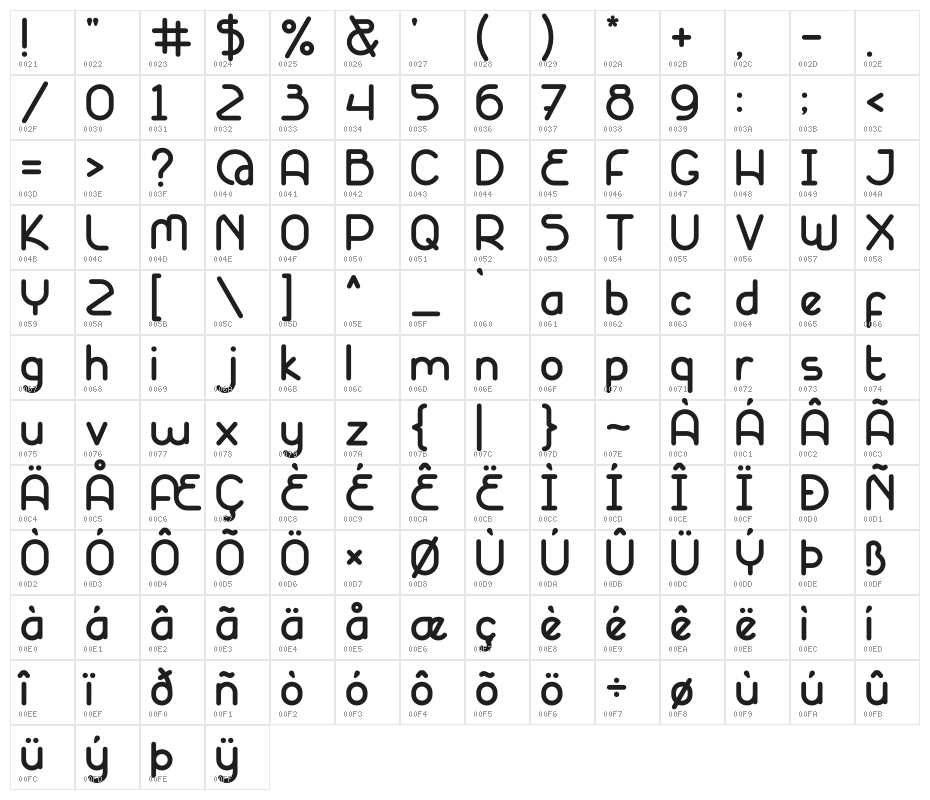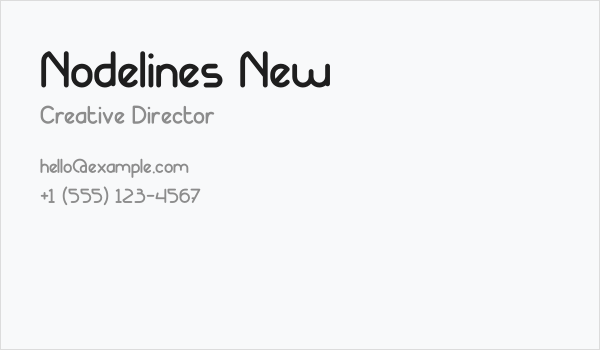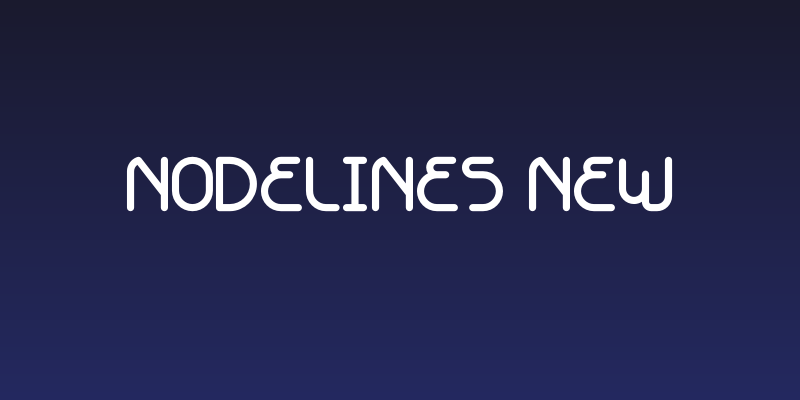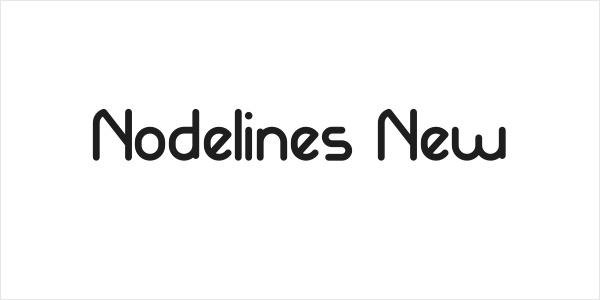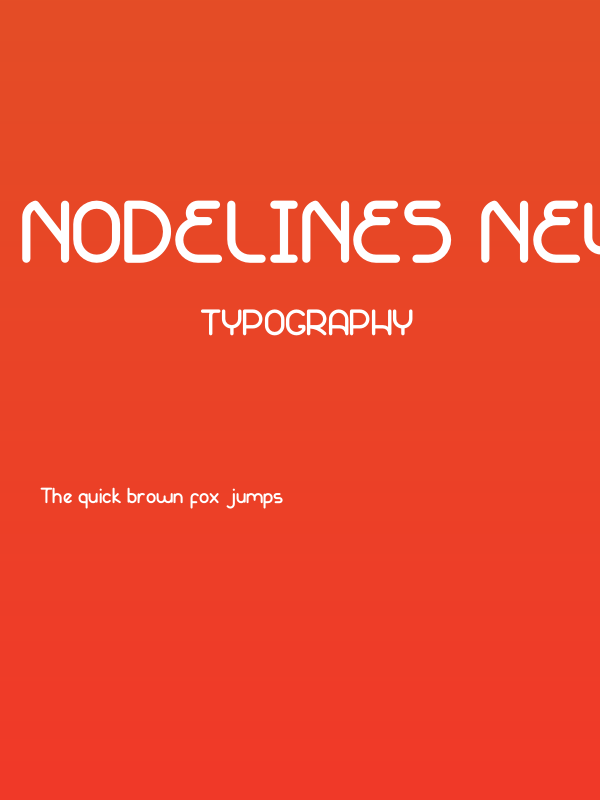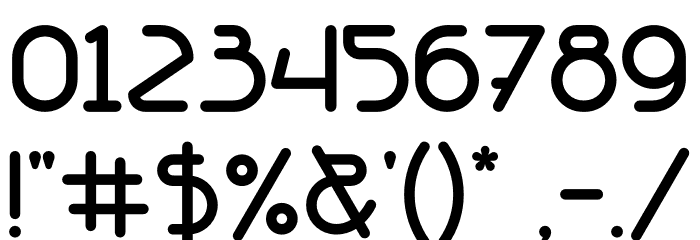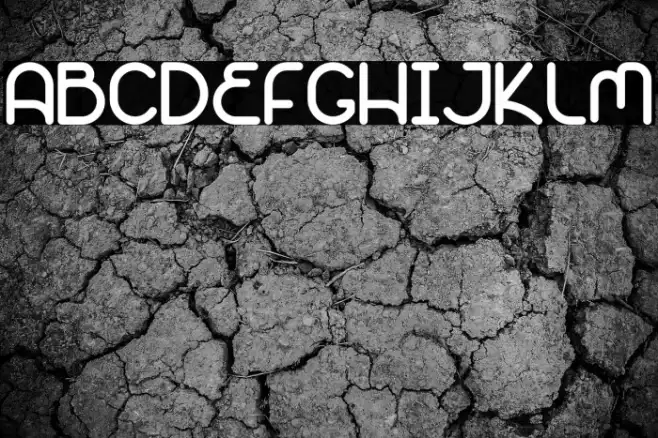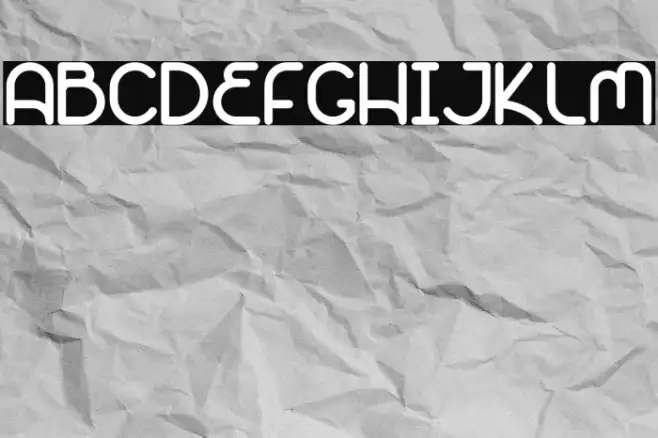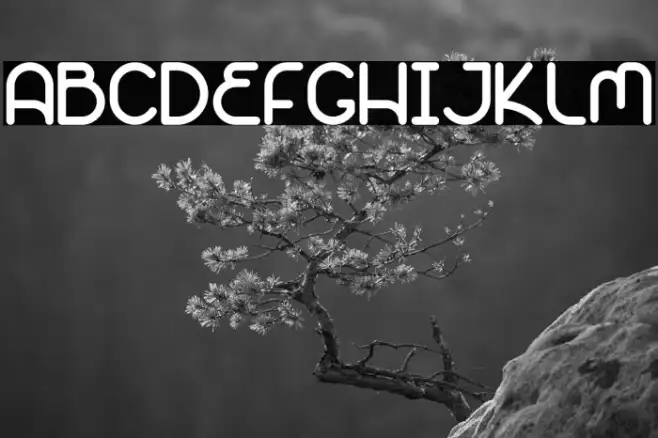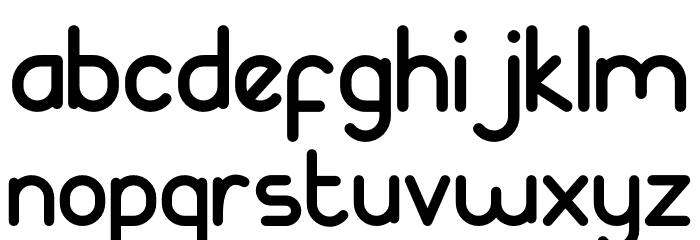
Nodelines New Font
Nodelines New Description
This font features a modern, rounded style with a clean and approachable appearance. The characters are uniformly thick, giving it a consistent and cohesive look. The rounded edges soften the overall feel, making it friendly and inviting. The uppercase and lowercase letters maintain a uniform height, contributing to its balanced aesthetic. The numerals and special characters are designed to match the letterforms, ensuring harmony across all elements. This font is versatile, suitable for both digital and print media, and can be used in various design contexts.
| Proposed Projects | Ideal for branding, packaging, children's books, and digital interfaces. |